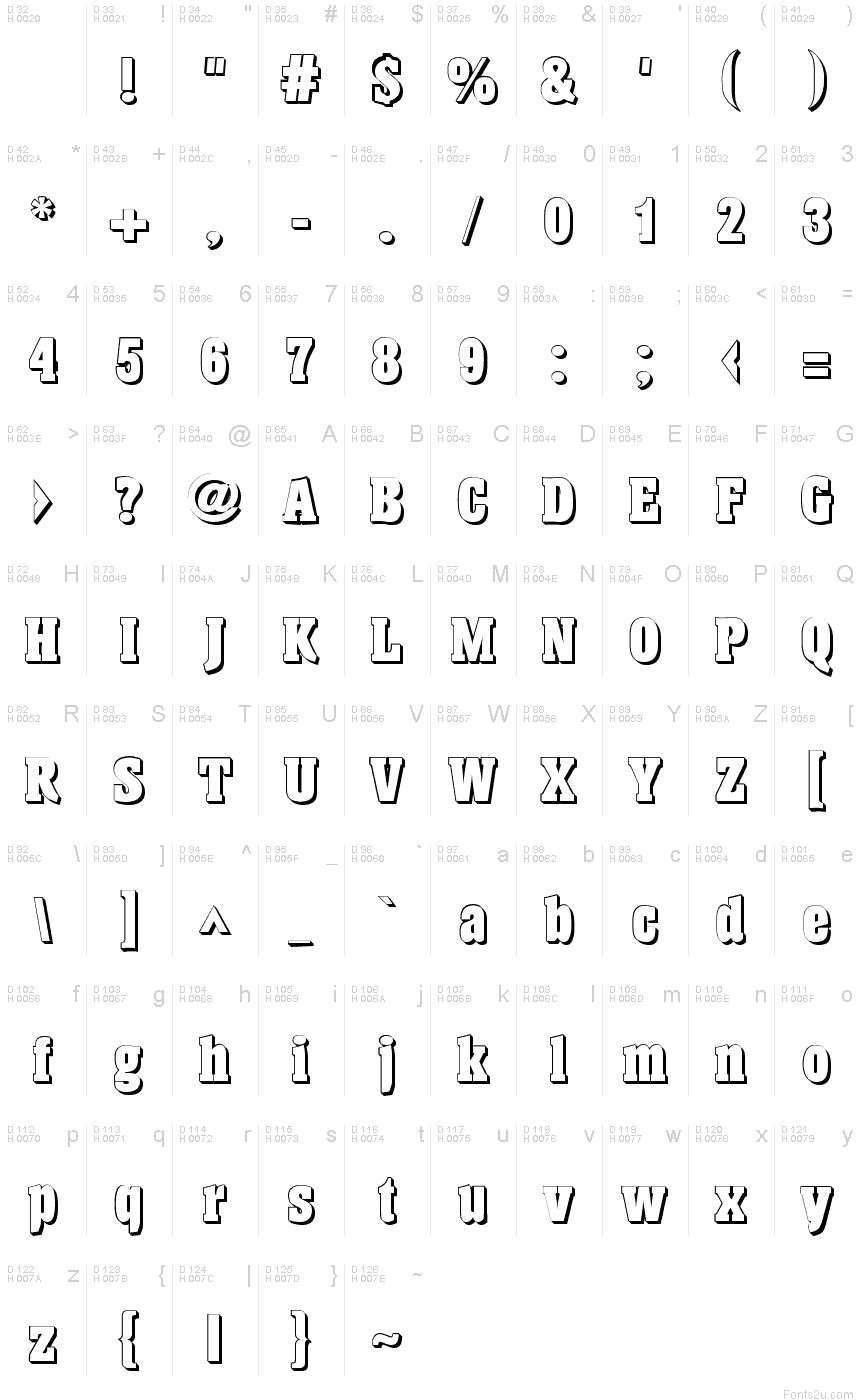
Hansen Shadow
Hansen Shadow by Typographer Mediengestaltung is a free Western shadow display font with oversized slab serifs and a deep offset underside. Its broad letters mix squared edges with swelling curves and recall the blunt theatrical look of painted saloon signage. The deep shadow is part of the drawing.
A barbecue restaurant, craft brewery, or western-themed venue could build its branding around this sturdy signboard style. It also suits event posters and merchandise tied to country music, rodeos, or frontier entertainment. In those settings, the layered letterforms can become an illustrated storefront sign or badge rather than plain text.